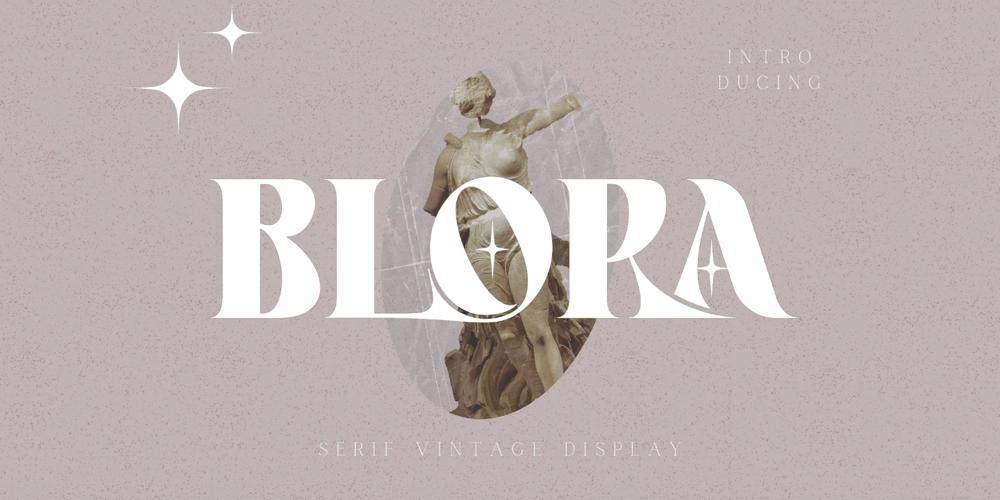
Blora
Blora font
Blora Font Family was designed by Ali Sifak Muftari and published by Liartgraphic. Blora contains 1 styles and family package options. Hello guys!How are you guys? I bet it’s great!Introducing our newest product, we call this product the Blora font.The Blora font is a serif font that has unique and interesting ligatures and alternativesWith a unique and firm touchThe Blora font is great for:fashion magazines, logos, photography, landing pages, flyers,What’s included- multilingual support- alternative- fastenerThank you, best regardsAli Sifak Muftari